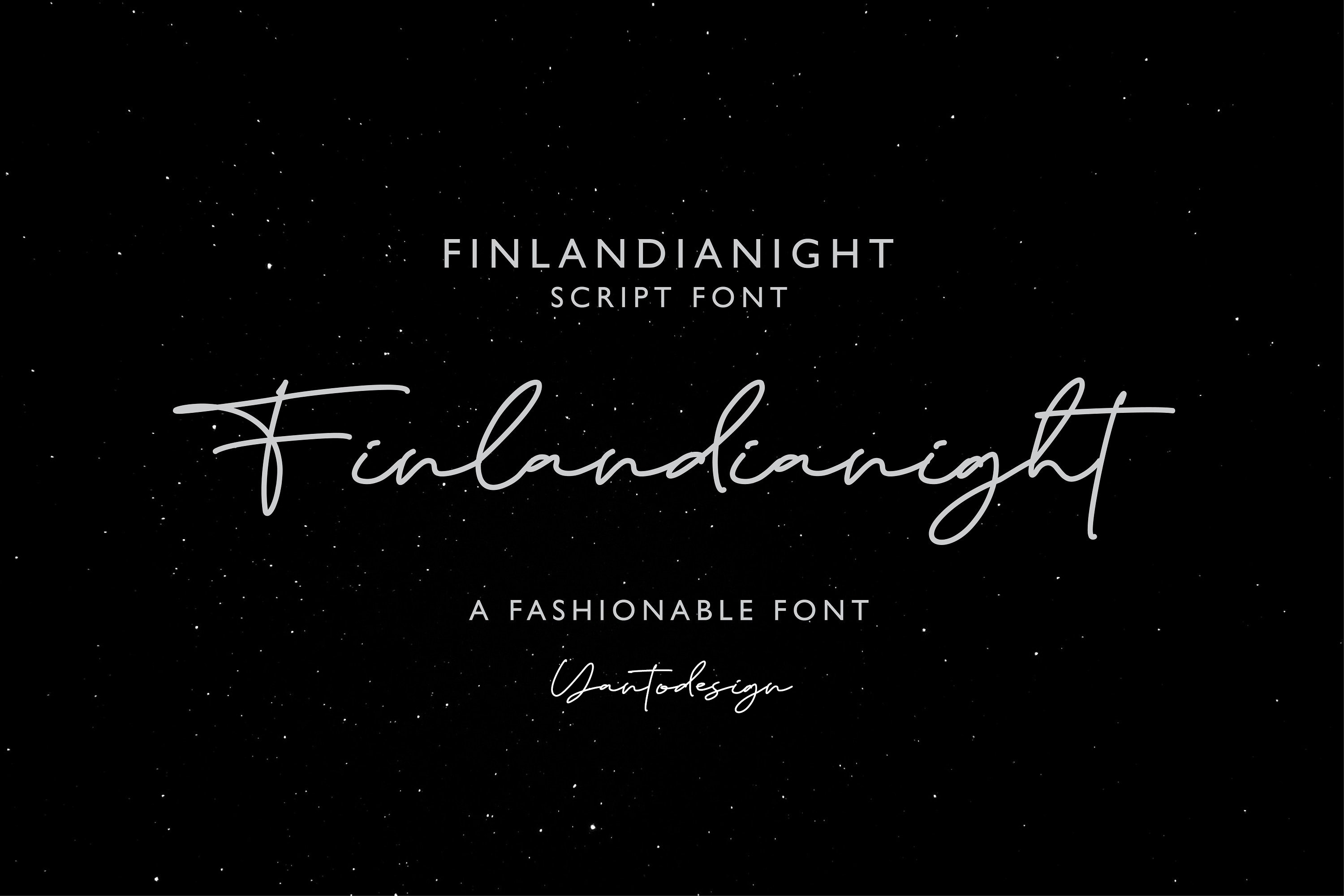
Finlandianight Script Signature Font
Finlandianight Script Font is a stylish Signature font that features a varying baseline, smooth line, classic and interesting touch. Can be used for various purposes. such as headings, signature, logos, posters, t-shirt, signage, lable, wedding invitation, badges etc.